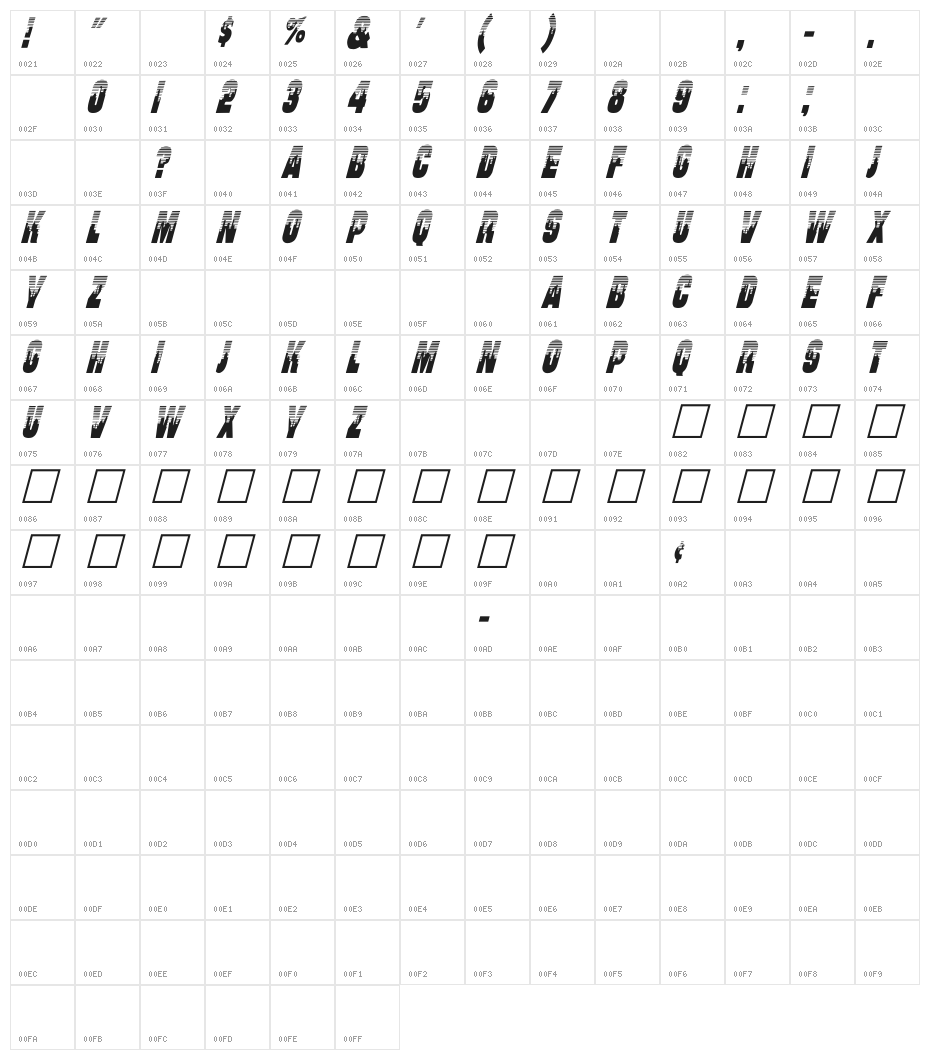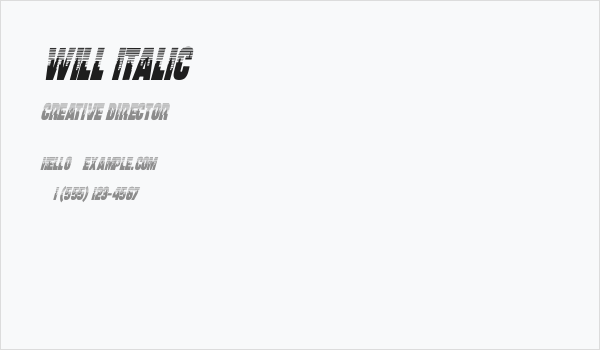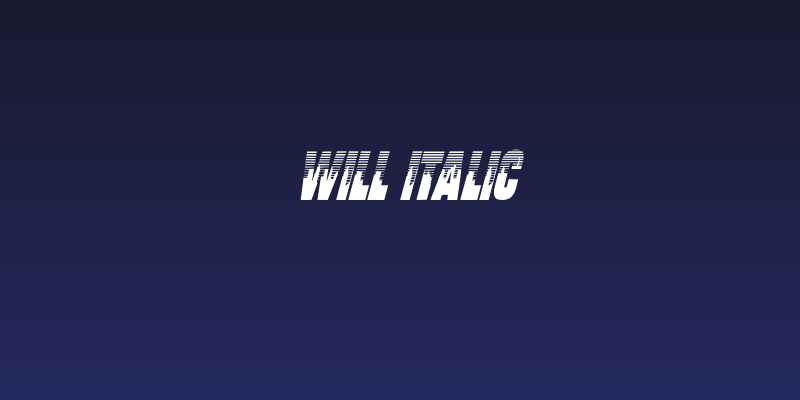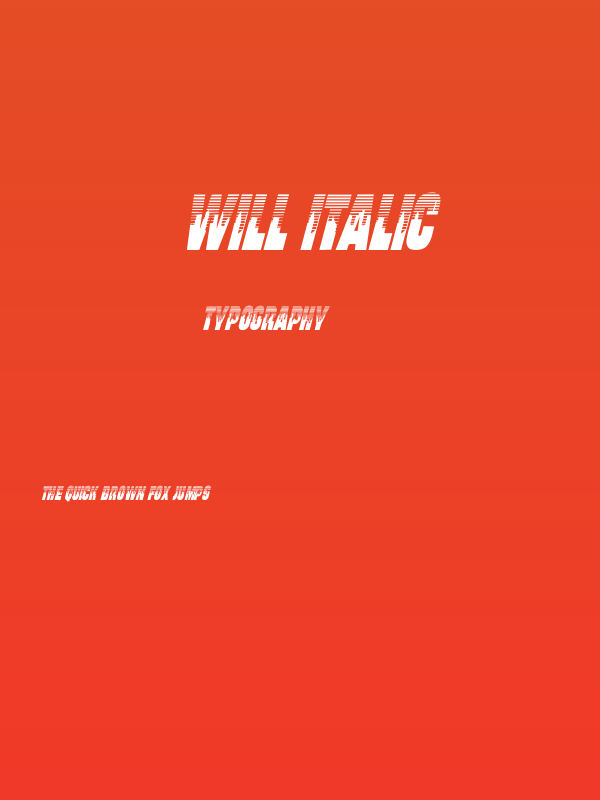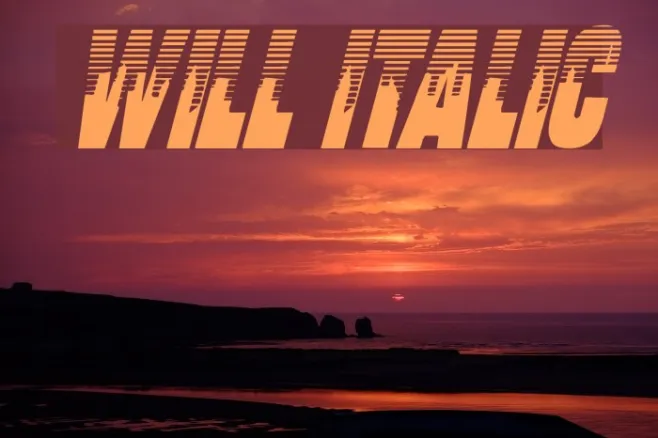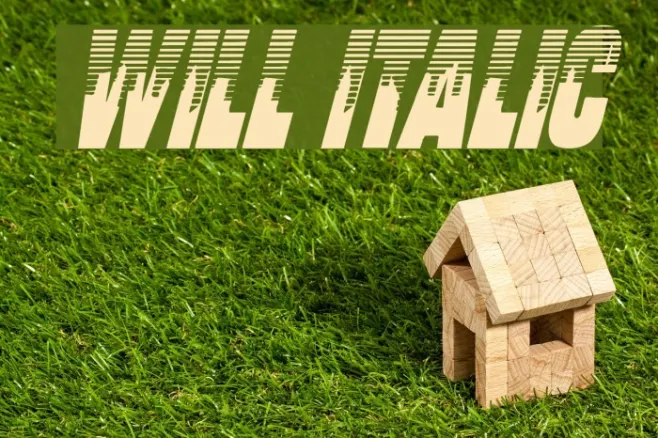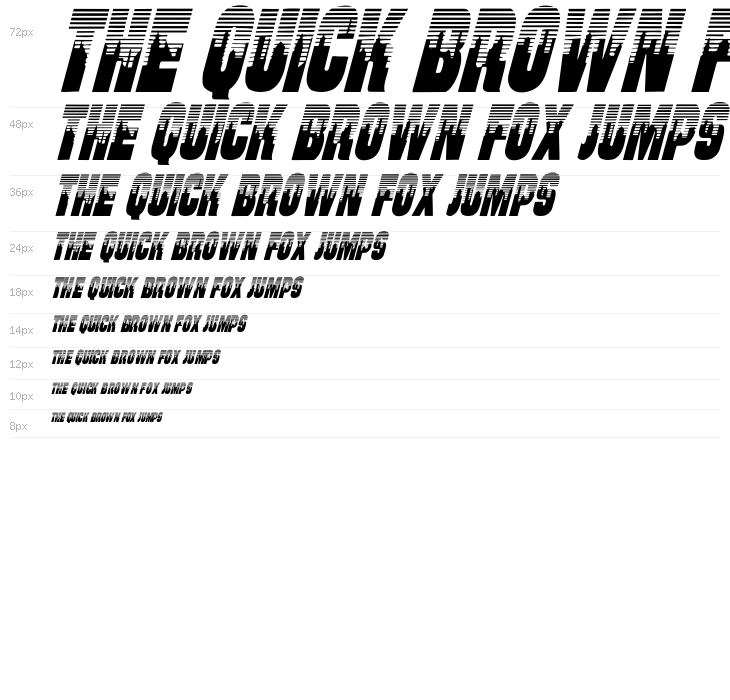
Will Italic Font
Will Italic Description
This font features a bold and dynamic style with a distinct italic slant, giving it a sense of motion and urgency. The characters are heavily condensed, with a unique striped pattern that adds a modern and edgy feel. The uppercase and lowercase letters maintain a consistent style, while the numerals and special characters are designed to match the overall aesthetic. The font's high contrast and thick strokes make it stand out, making it ideal for attention-grabbing designs.
| Proposed Projects | Ideal for sports branding, dynamic posters, edgy advertisements, and modern web design. |